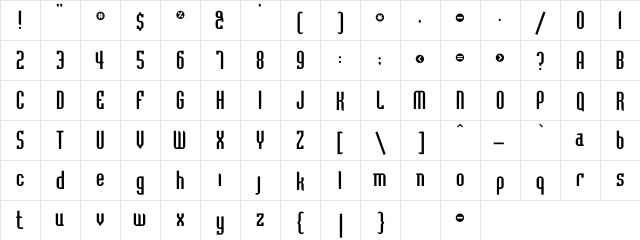
BedrockC Regular
Design Context for BedrockC Typeface
BedrockC is a composed and adaptable typeface that performs quietly and consistently across a wide range of design contexts.